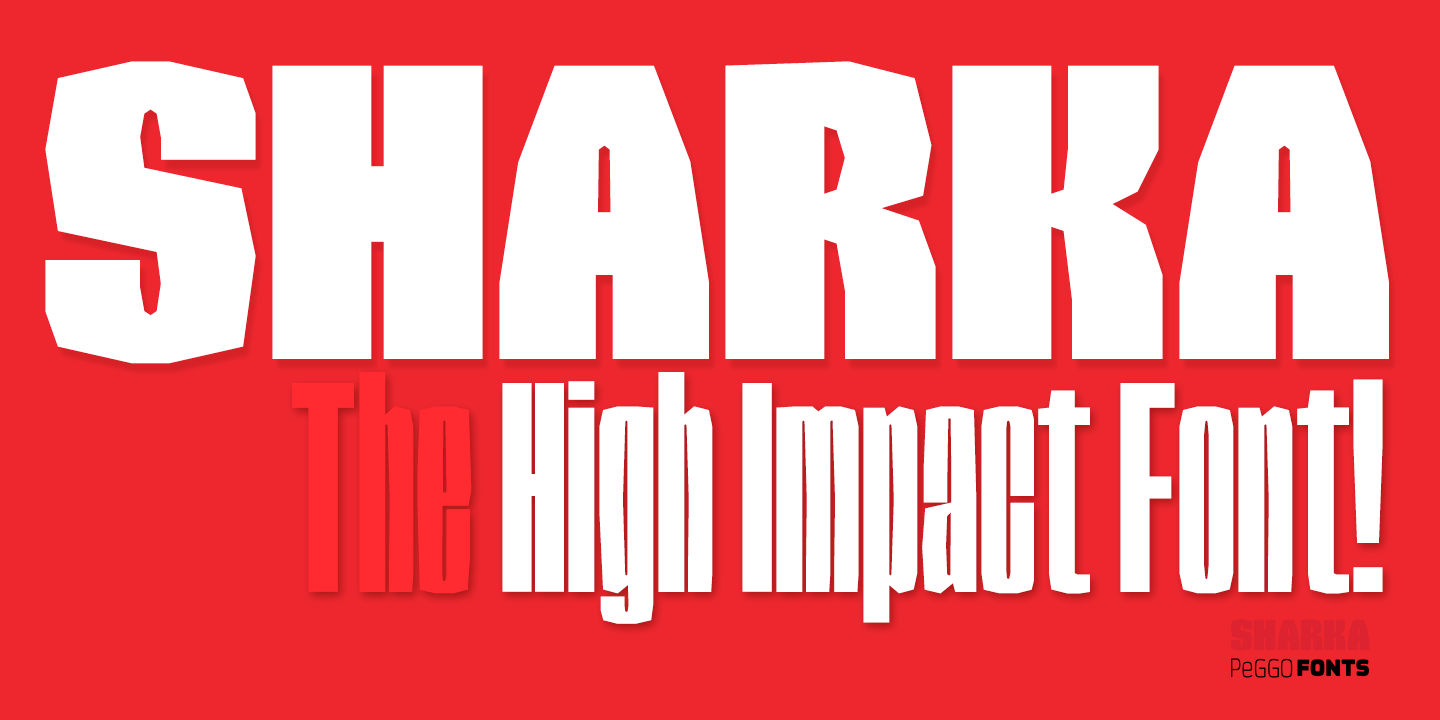
Sharka Font is perfect for bold headline designs, impactful poster layouts, dynamic logo creation, sports team branding, action movie titles, gaming graphics, extreme sports marketing, energy drink packaging, fitness brand identity, automotive advertising, and any high-energy project that demands powerful visual presence and commanding authority.
What makes Sharka Font exciting is its aggressive, sharp-edged design that cuts through visual noise with razor-like precision. This typeface embodies raw power and intensity, featuring angular letterforms that suggest speed, strength, and determination. The font's fierce character makes it perfect for brands and projects that need to project confidence, dominance, and unstoppable energy in competitive markets.
The Sharka Font family includes various weights and stylistic alternatives, featuring regular, bold, and condensed versions along with decorative elements and special characters. This comprehensive collection provides designers with the flexibility to create dynamic typography systems that maintain the font's aggressive personality while offering versatility for different hierarchical needs and application requirements.
When exploring powerful display typography, Sharka Font Free Download represents an exceptional opportunity to work with a typeface that delivers maximum visual impact. This font showcases innovative design thinking with its sharp angles and aggressive stance, creating letterforms that demand attention and respect in any competitive visual environment.
Professional designers appreciate Sharka Font for its ability to instantly communicate strength and authority across various media platforms. The font's commanding presence makes it particularly effective for brands targeting action-oriented demographics or companies wanting to establish a bold, fearless identity. Its versatility extends from digital applications to large-scale environmental graphics.
The contemporary appeal of Sharka Font lies in its perfect balance between aggressive design and professional legibility. While maintaining its fierce character, the font never compromises on readability, making it an excellent choice for projects requiring both dramatic visual impact and functional typography performance.
For creative professionals seeking to make powerful design statements, Sharka Font represents the ultimate expression of typographic intensity and visual dominance, ensuring every application commands attention and projects uncompromising strength in today's competitive marketplace.